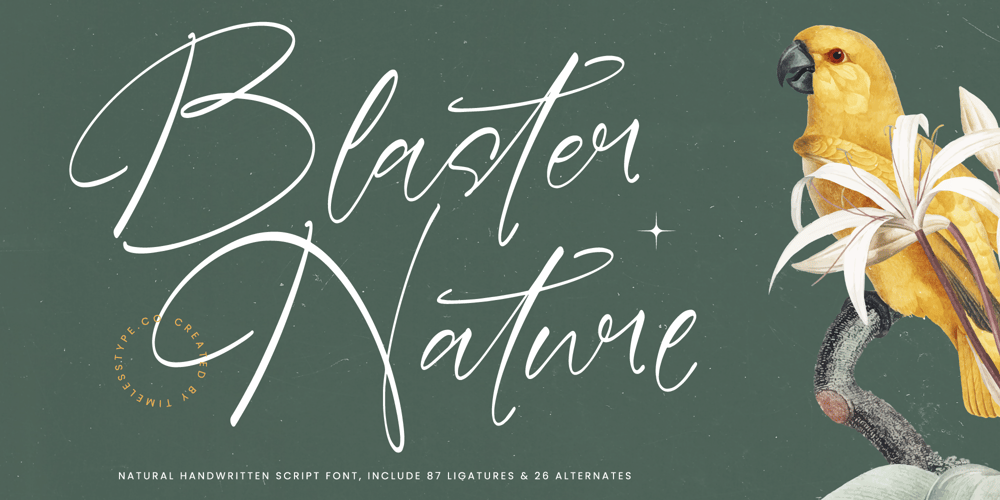
Blaster Nature Font Family was designed by Heru Utama Putra and published by Stylishtype Studio. Blaster Nature contains 2 styles and family package options. Blaster Nature – Natural Handwritten Script Font , from Stylishtype , Suitable for any projects such as: logos, branding projects, homeware designs, product packaging, mugs, quotes, posters, shopping bags, t-shirts, book covers, name card, invitation cards, greeting cards, label, photography, watermark, special events, and all your other luxury and beautiful projects that need a Luxury Script taste.